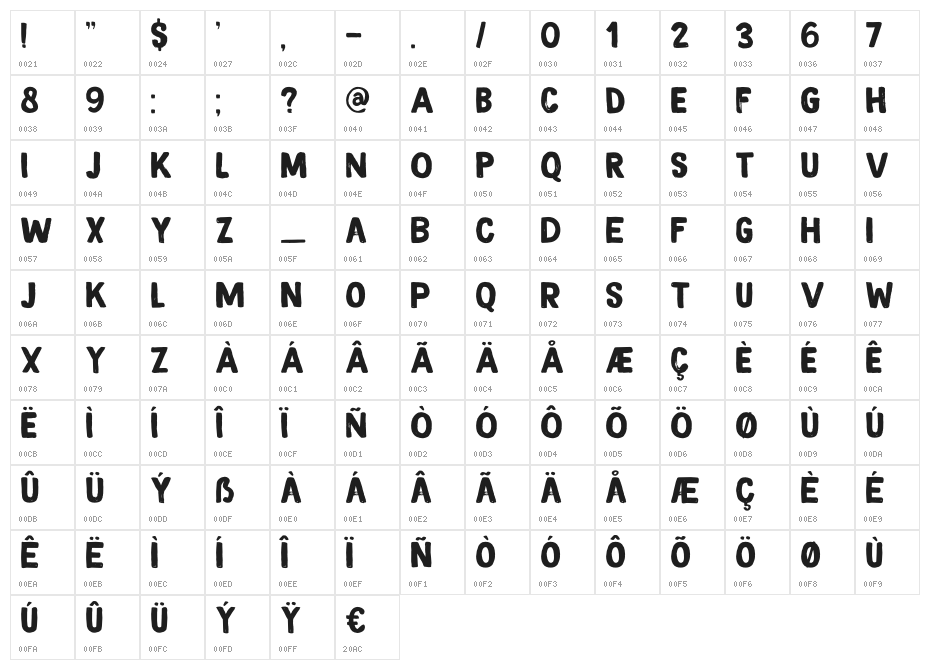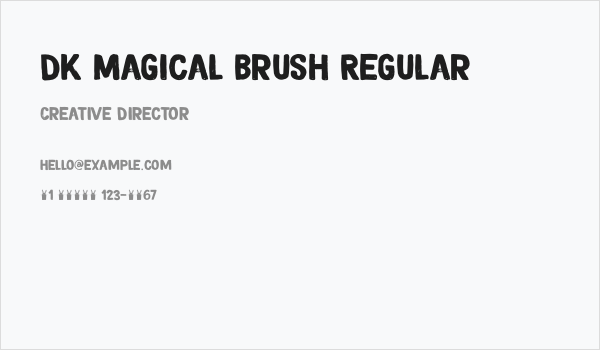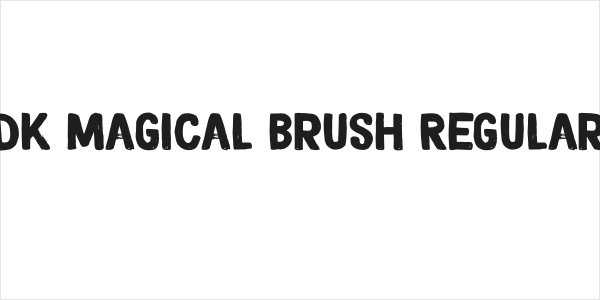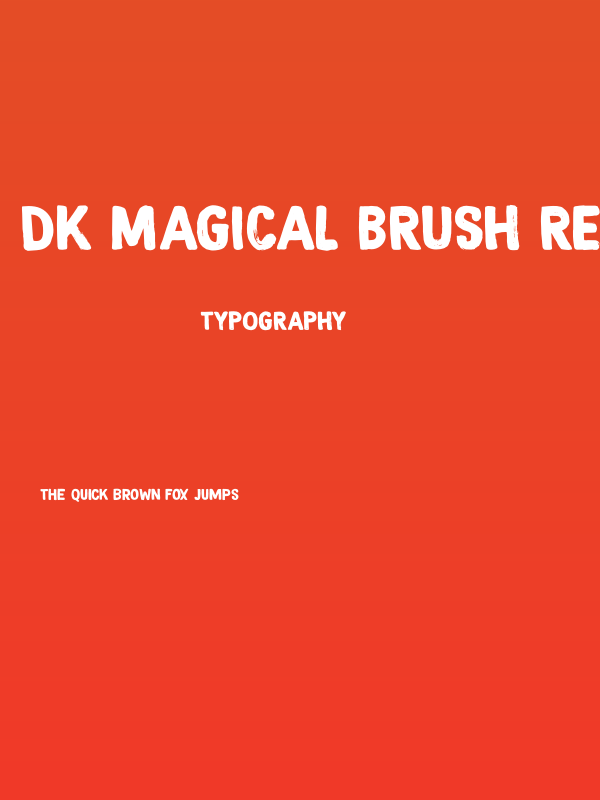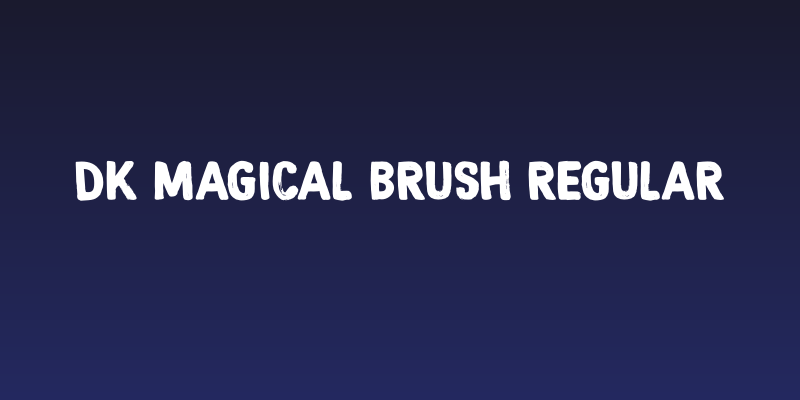
DK Magical Brush Regular Font
DK Magical Brush Regular Description
This font features a playful and bold brush style, characterized by its thick strokes and slightly irregular edges, giving it a hand-painted appearance. The uppercase and lowercase letters maintain a consistent weight, creating a cohesive look. The numbers and special characters are designed with the same boldness, ensuring uniformity across all elements. The font's whimsical nature is enhanced by the inclusion of unique symbols, adding a touch of creativity and fun. Its overall aesthetic is both eye-catching and approachable, making it suitable for a variety of creative projects.
| Overall Style | Playful, Creative |
| Proposed Projects | Ideal for children's books, playful branding, posters, and creative invitations. |